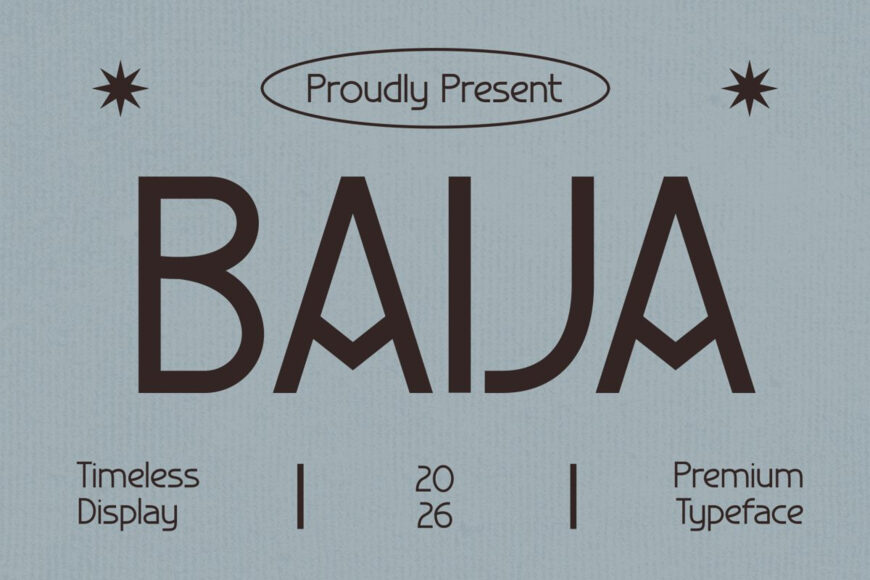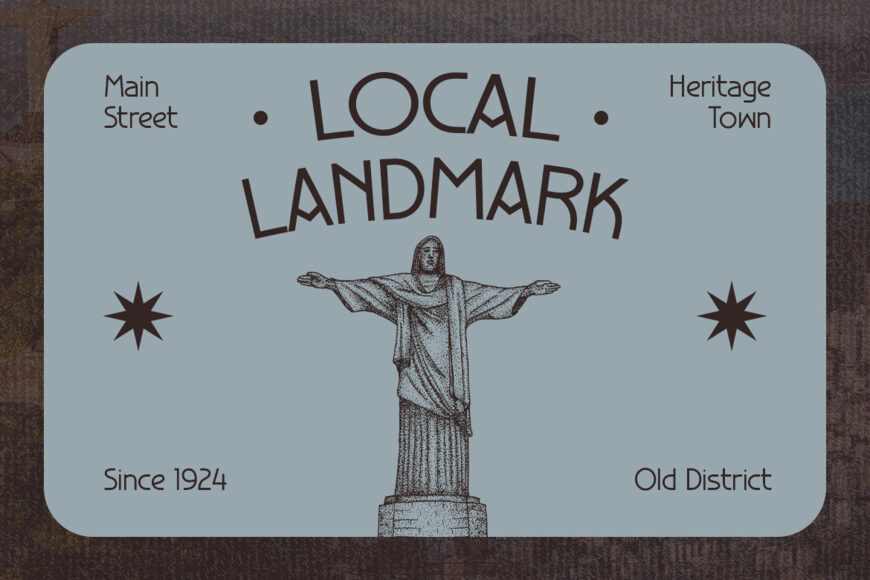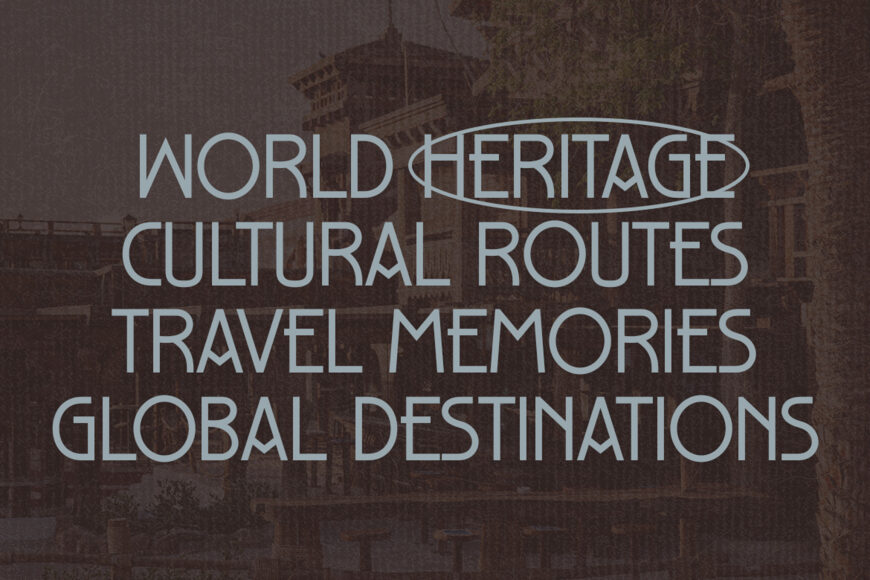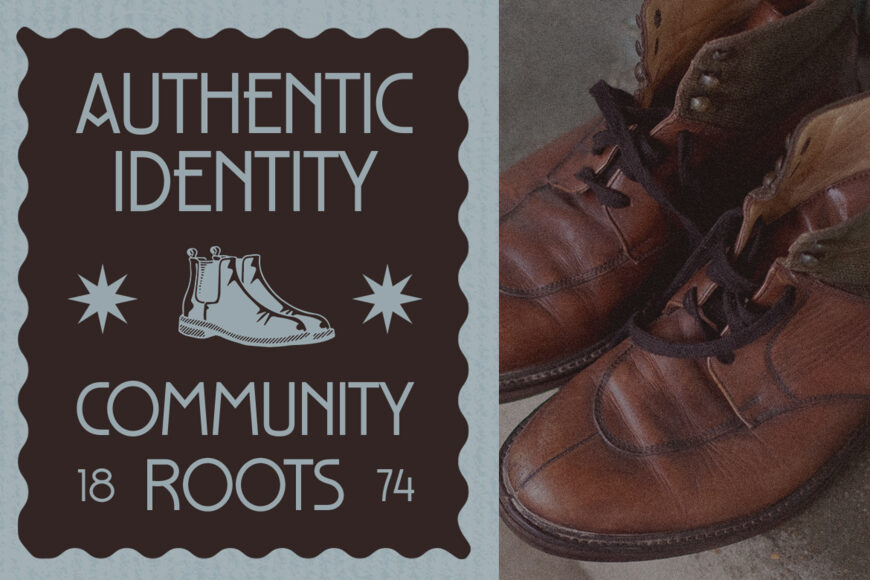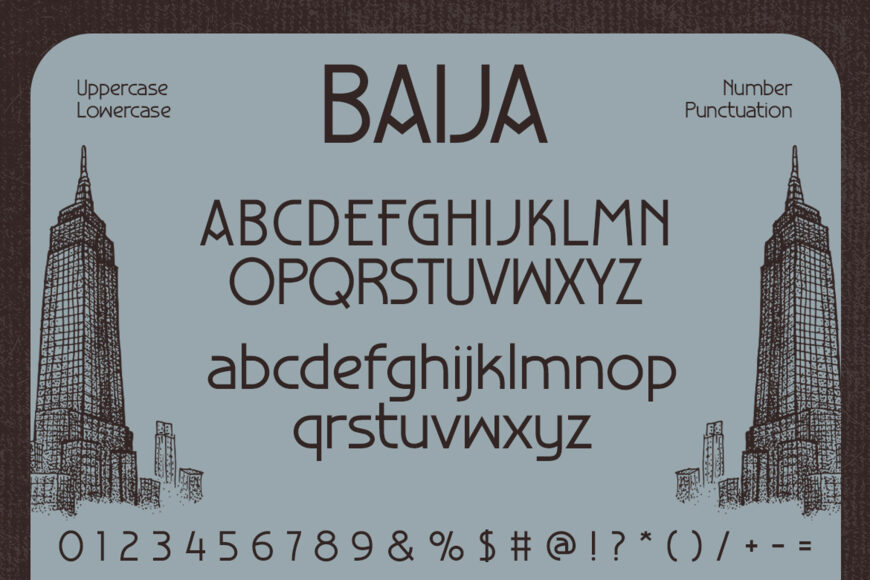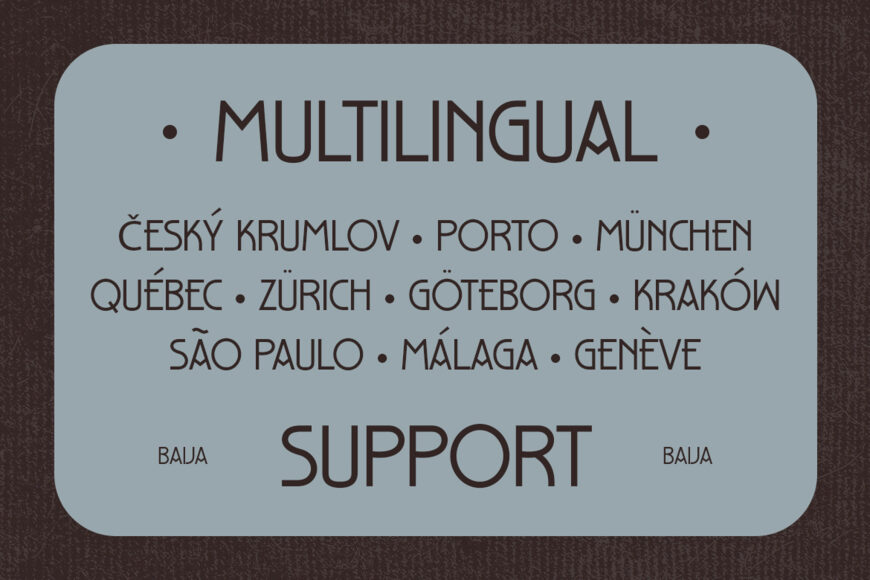
Baija Font blends timeless elegance with vintage craftsmanship to create typography that feels authentic, refined, and unforgettable.
Inspired by heritage signage and classic editorial design, it features clean geometric letterforms, subtle Art Deco influences, and balanced proportions that deliver a sophisticated retro character. Moreover, its minimalist structure keeps every word highly readable, while its nostalgic personality gives your branding a lasting impression.